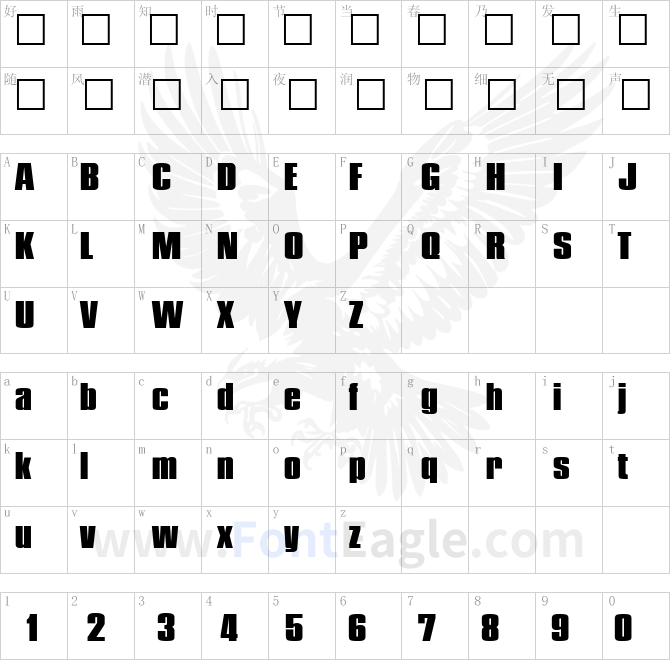
- Font name:PledgeBlack
- Font Subfamily ID:Weatherly Systems, Inc. PledgeBlack Regular
- Font Full Name:PledgeBlack Regular
- Postscript:PledgeBlack